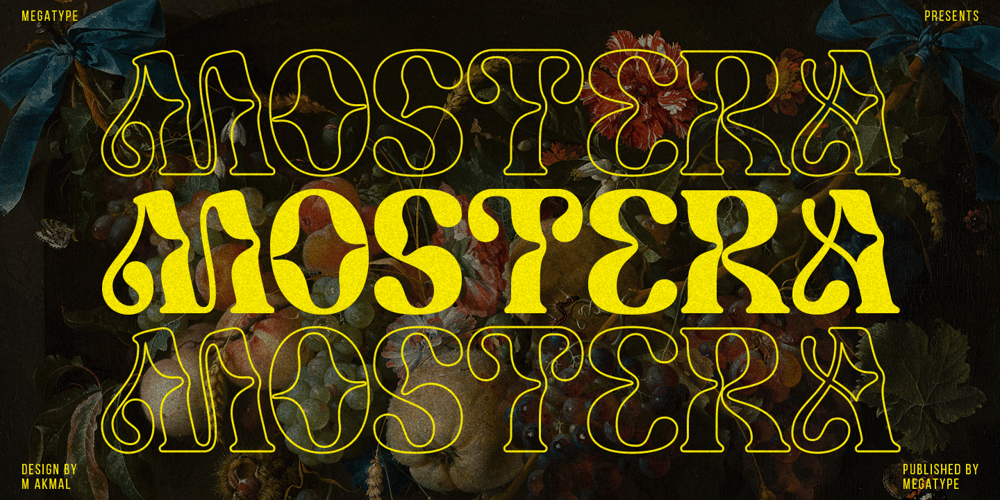
Mostera Font Family was designed by M Akmal and published by Mega Type. Mostera contains 1 styles and family package options. INTRODUCINGMostera is a fun unique display serif font. This font looks sturdy and fun with a retro touch and curves giving it a playful personality.Mostera is a versatile display serif that works in both large and small sizes. This font is suitable for a wide variety of projects such as: headlines, logos, labels, branding projects, weddings, magazines, product packaging, mugs, quotes, posters, and more.Have fun using Mostera!!!I really hope you enjoy it!Feel free to follow, like and share. Thank you so much for checking out my shop!